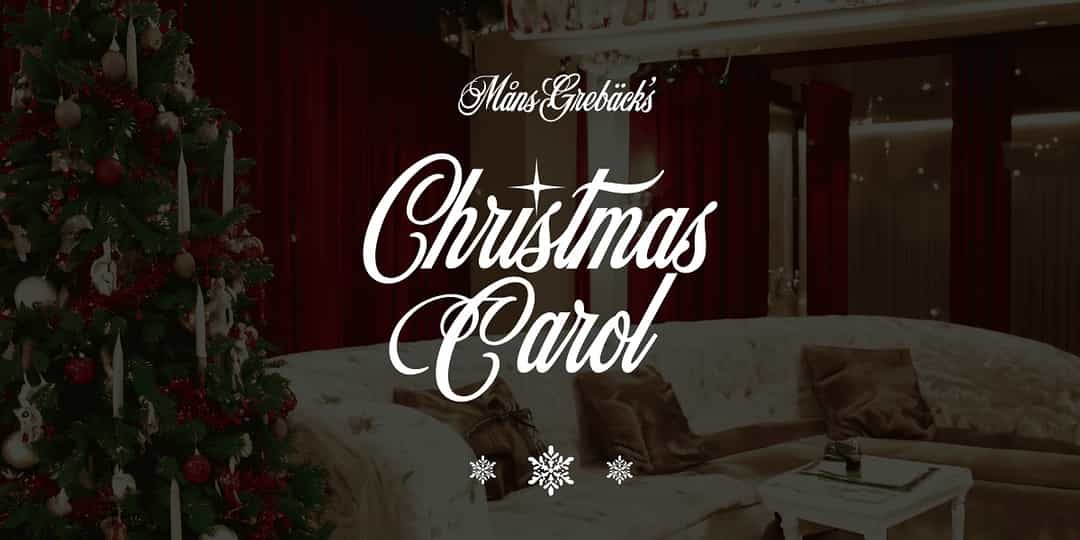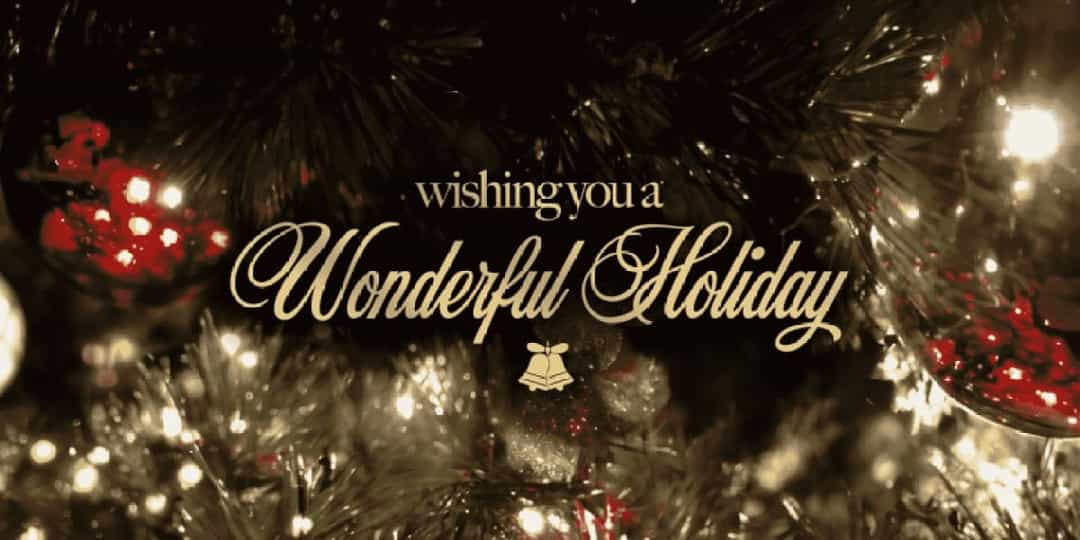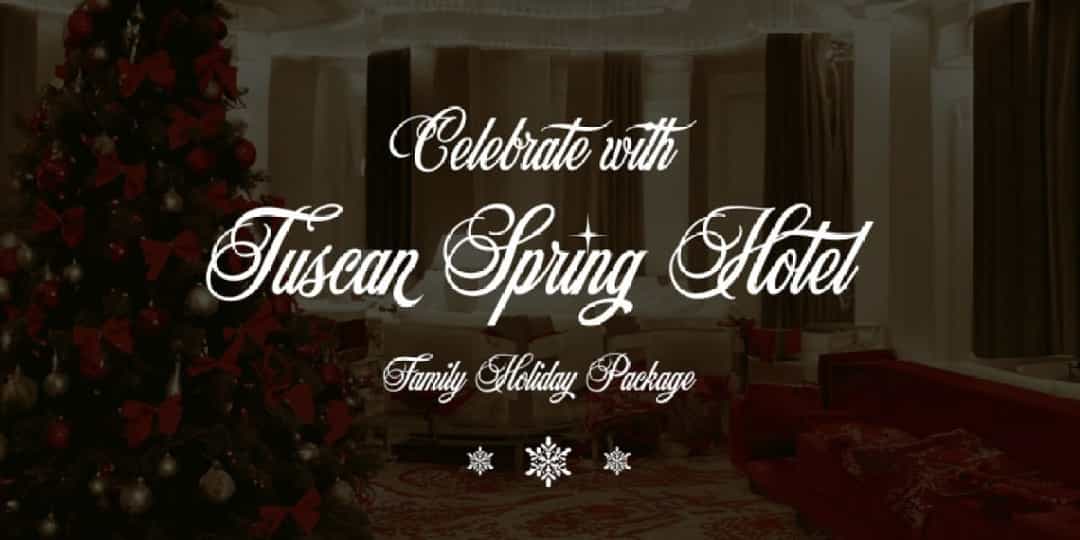
Christmas Carolis a modern Christmas font featuring an elegant and classic design with its varied background, smooth line, flowing formal tones, elegant curves and nostalgic appeal that make it the ideal way to capture the warmth and joy of this festive season. Christmas Carol also adds nostalgic charm that adds sophistication and nostalgia into holiday greetings and decorations alike.